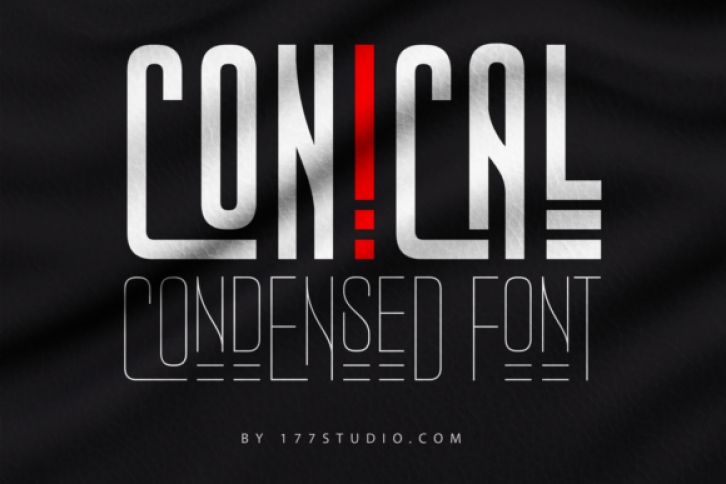
Conical is an incredibly cool and futuristic display font. This font is ideal for writing web designs, business cards, or pretty much anything else that requires a unique touch.